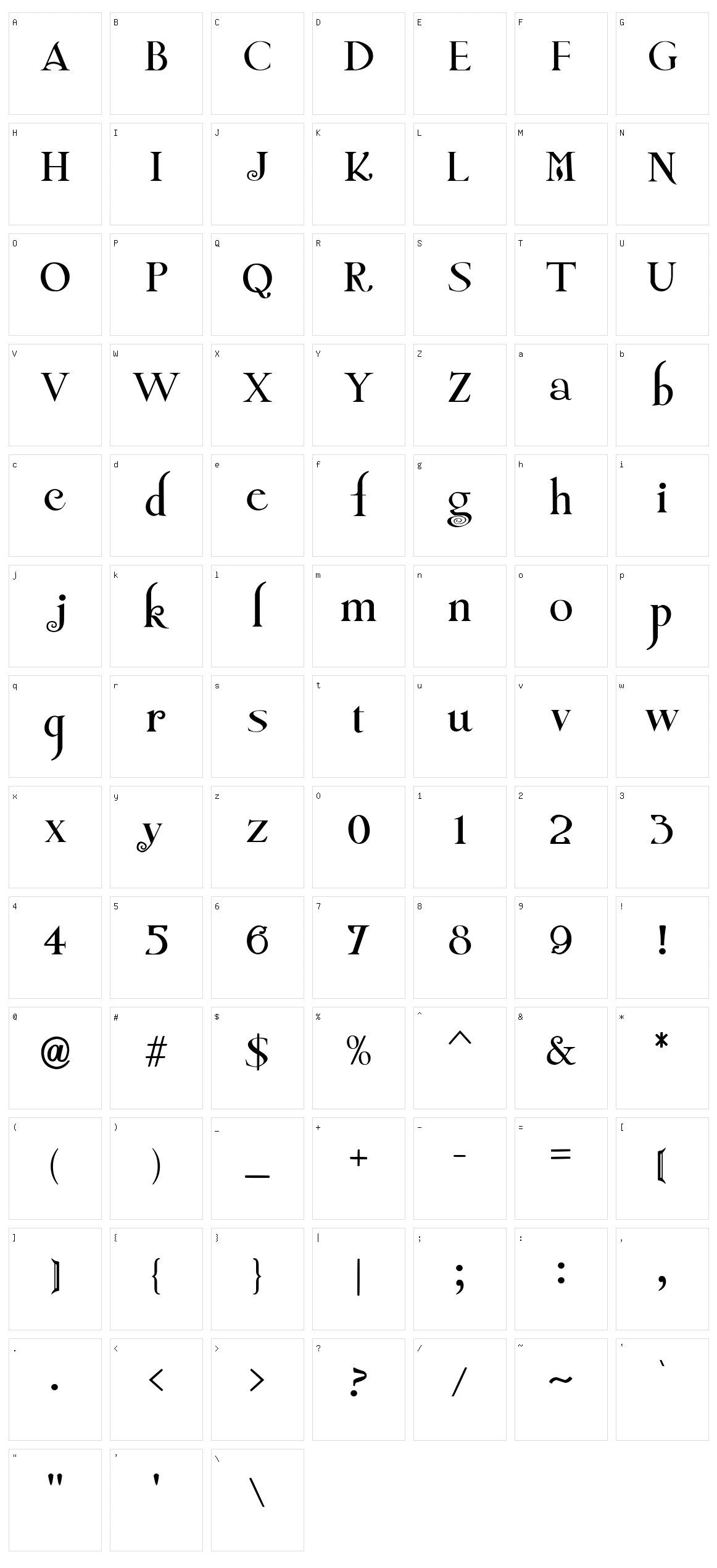
Font name: TWILIGHT new moon - Latin Decorative font (versione 1.0)
Twilight font: directly from the Best Seller of Stephenie Meyer, the
dark gothic atmospheres beloveds to the cult of the "vampiro", in an
unknown garment that gives the young romantic love in the name of Bella and Edward,
in the forbidden Love beloveds to the gotten passionate girls-readers more.
Twilight font: direttamente dal Best Seller di Stephenie Meyer, le cupe atmosfere
gotiche care al culto del vampiro, in una veste inedita che regala il giovane romanticismo
adolescenziale nel nome di Bella e Edward, nellAmore proibito che riscopre turbamenti